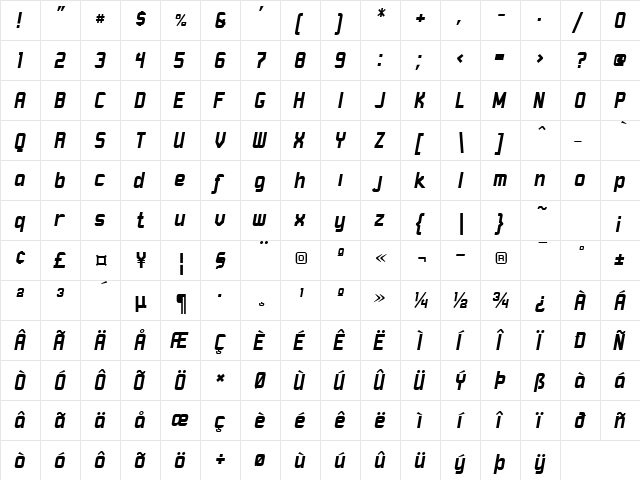
Robust ICG BoldItalic
Design Context for Robust ICG Typeface
Robust ICG takes a measured approach to typography — its balanced proportions and neutral character make it a reliable workhorse for both digital and print work. Its italic angle brings a sense of urgency and motion to the letterforms. The heavy weight commands attention and anchors typographic hierarchies.
Pro Tip: Use Robust ICG for emphasis, pull quotes, and subheadings where its slanted energy can add rhythm to the layout.